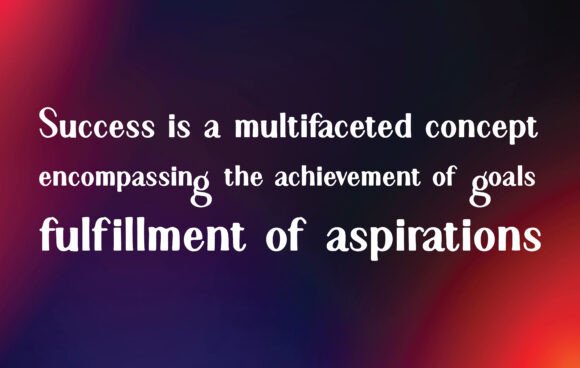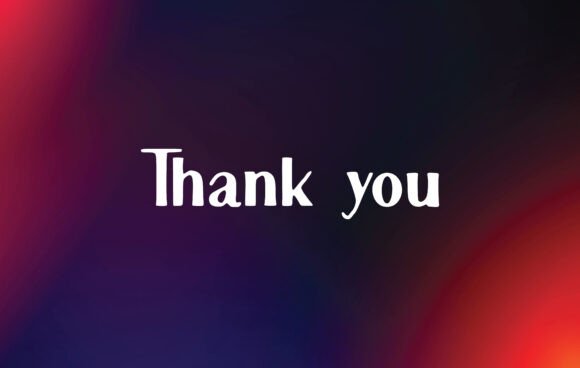
Bell Font: Elevate Your Creative Ideas with this Lovely Handwritten Font
Are you a designer or crafter looking for a font that can take your creative ideas to the next level? Look no further than the Bell Font. This beautiful handwritten font is perfect for creating eye-catching logos, branding, and quotes that will leave a lasting impression on your audience. In this article, we’ll dive into the features and benefits of the Bell Font, and explore how it can elevate your design game.
What is Bell Font?
Bell Font is a stunning handwritten font that exudes elegance and sophistication. Its unique and flowing script makes it perfect for a variety of design projects, from logos and branding to quotes and social media graphics. The font is designed to be highly legible, making it easy to read and understand, even at smaller sizes.
Key Features of Bell Font
- Handwritten script: Bell Font features a beautiful handwritten script that adds a personal touch to any design project.
- Elegant and sophisticated: The font’s flowing lines and curves give it an air of elegance and sophistication, making it perfect for high-end branding and design projects.
- Highly legible: Despite its ornate script, Bell Font is highly legible, making it easy to read and understand.
- Versatile: Bell Font can be used for a wide range of design projects, from logos and branding to quotes and social media graphics.
Benefits of Using Bell Font
So why choose Bell Font for your design projects? Here are just a few benefits of using this lovely handwritten font:
- Adds a personal touch: Bell Font’s handwritten script adds a personal touch to any design project, making it perfect for brands looking to establish a unique and relatable identity.
- Creates a lasting impression: The font’s elegant and sophisticated script is sure to leave a lasting impression on your audience, making it perfect for logos, branding, and other high-impact design projects.
- Easy to use: Bell Font is highly legible and easy to use, making it perfect for designers of all skill levels.
Using Bell Font for Design Projects
So how can you use Bell Font to elevate your design projects? Here are a few ideas to get you started:
- Logos and branding: Use Bell Font to create a unique and memorable logo that sets your brand apart.
- Quotes and social media graphics: Use Bell Font to create eye-catching quotes and social media graphics that will engage and inspire your audience.
- Packaging and product design: Use Bell Font to add a personal touch to your packaging and product design, making your products stand out on store shelves.
Tips for Getting the Most out of Bell Font
Here are a few tips for getting the most out of Bell Font:
- Experiment with different sizes and colors: Bell Font looks great at a variety of sizes and colors, so don’t be afraid to experiment and find the look that works best for your design project.
- Pair with other fonts: Bell Font pairs well with a variety of other fonts, so try pairing it with a bold sans-serif font for added contrast and visual interest.
- Use it consistently: Use Bell Font consistently across all of your design projects to establish a strong brand identity.
In conclusion, Bell Font is a beautiful and versatile handwritten font that can elevate your design projects to the next level. Its elegant and sophisticated script makes it perfect for logos, branding, quotes, and social media graphics, while its high legibility makes it easy to use and read. Whether you’re a designer or crafter, Bell Font is a great choice for anyone looking to add a personal touch to their design projects.